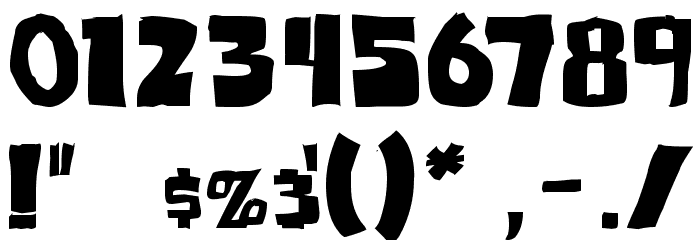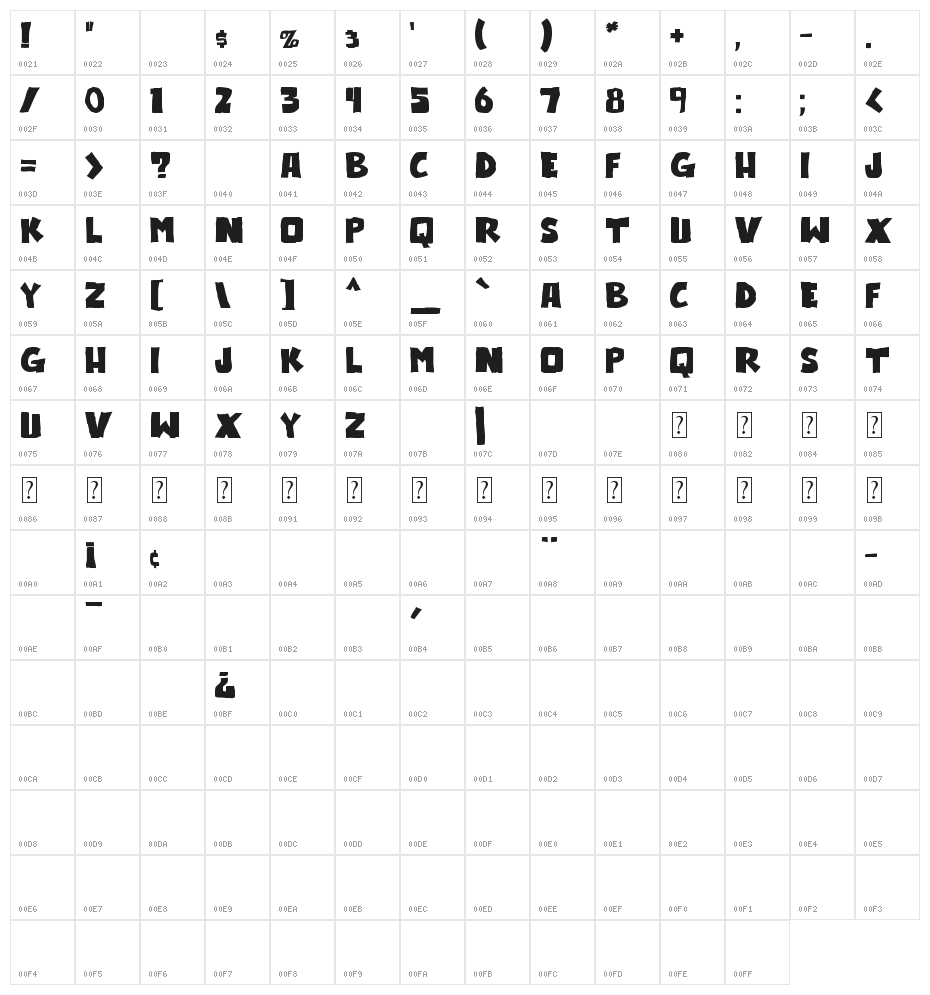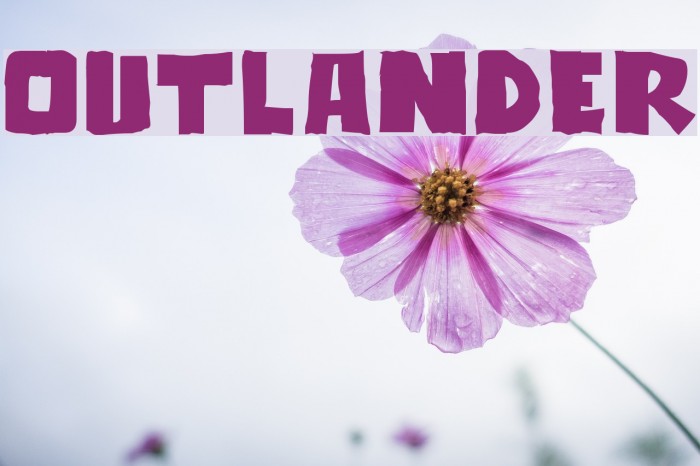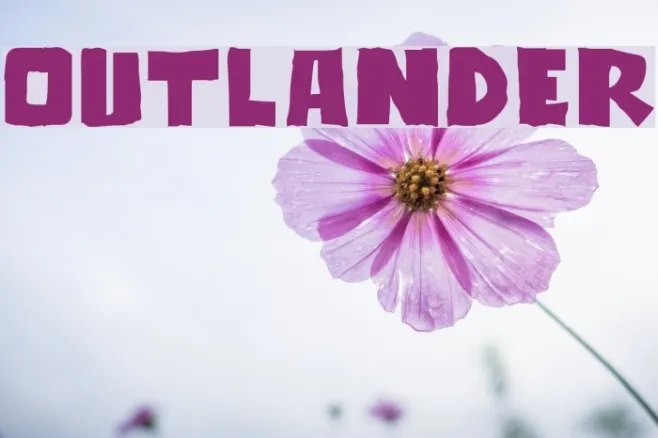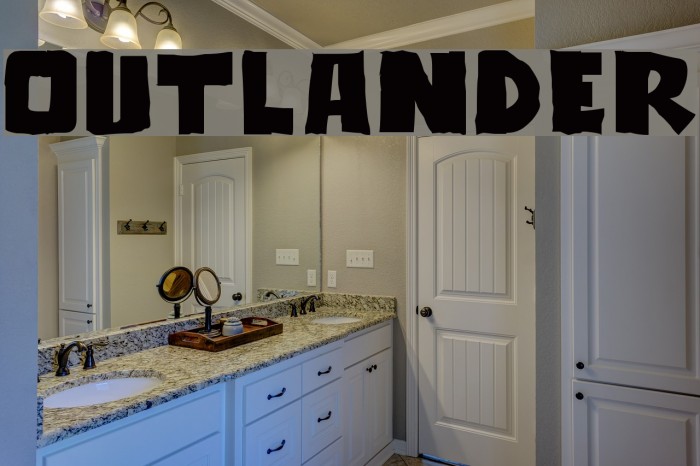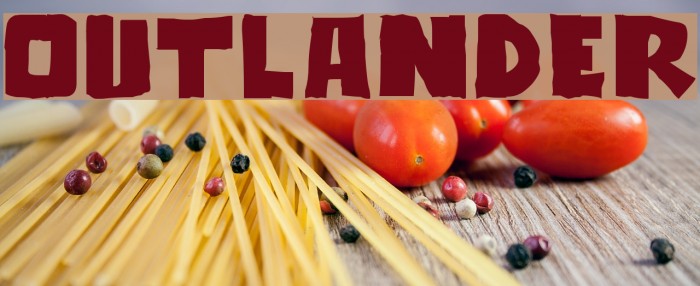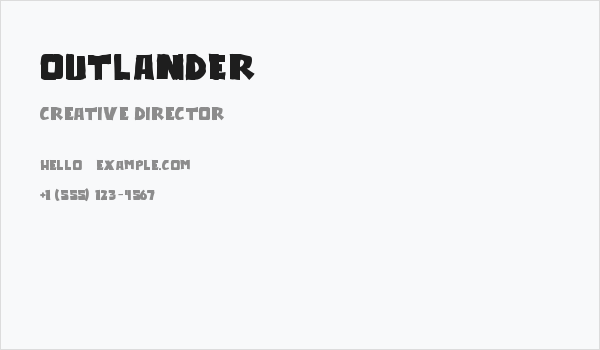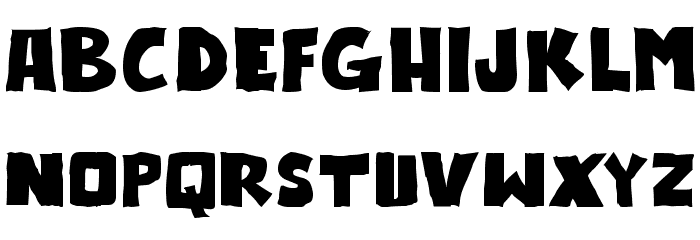
outlander Font
outlander Description
This font features a bold and dynamic style with a rugged, hand-crafted appearance. The characters are irregular and slightly distorted, giving them a unique, artistic flair. The uppercase and lowercase letters maintain a consistent weight, contributing to a cohesive look. The numbers and special characters follow the same design principles, ensuring uniformity across all glyphs. This font's boldness and distinctive style make it stand out, ideal for projects that require a strong visual impact.
| Proposed Projects | Perfect for posters, album covers, branding, and any project that requires a bold, artistic touch. |